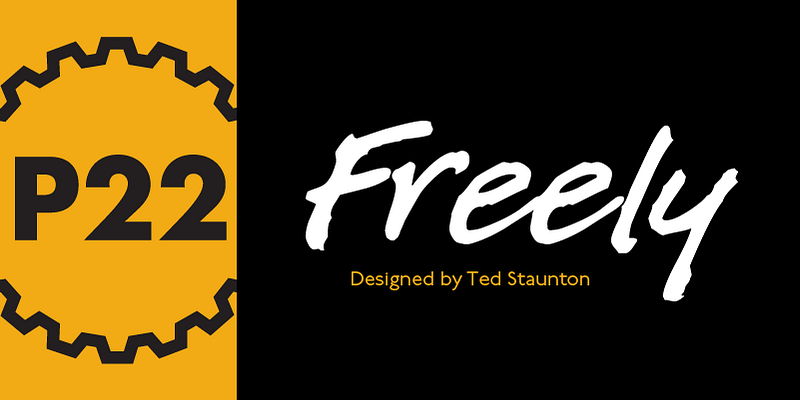
P22 Freely Font Free Download is a unique and playful script typeface that combines the fluidity of handwritten letters with modern design aesthetics. With its charming, flowing curves and dynamic character design, this font is perfect for creative projects that need an informal, friendly, and expressive touch, such as branding, invitations, posters, and social media graphics.
The P22 Freely Font's natural, handwritten style gives it a personal, organic feel, while still maintaining clarity and legibility. It’s ideal for projects where a sense of fun, spontaneity, and individuality is desired, making it great for casual design, advertising, and more.